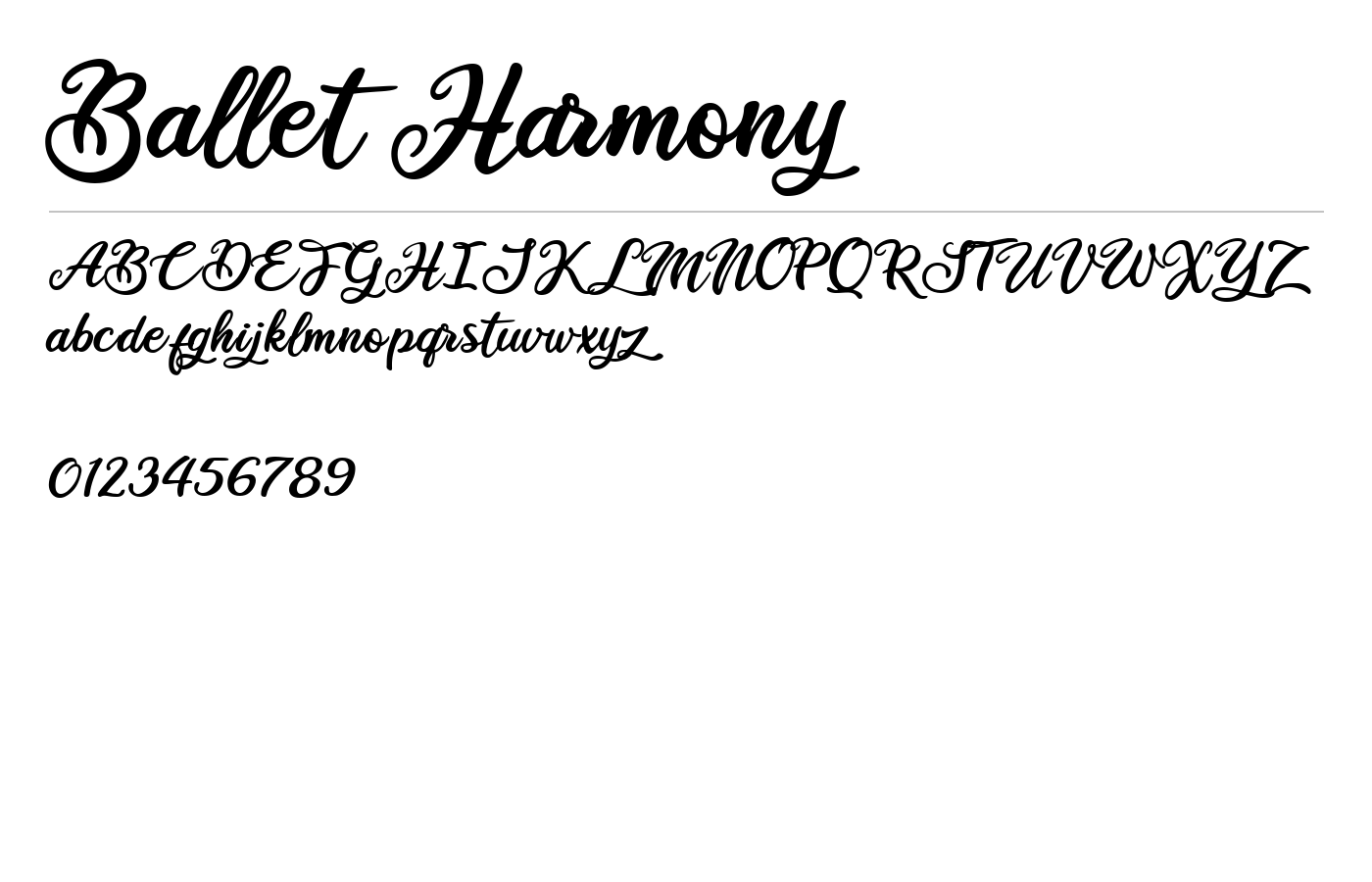
Ballet Harmony is a graceful, script-style font that combines elegance with a lively, handwritten charm. Its fluid, bold strokes and delicate loops create a sense of movement and sophistication, making it perfect for invitations, branding, and creative projects that need a touch of refinement and warmth. This font shines in contexts where a stylish yet approachable personality is desired.
Ballet Harmony Font